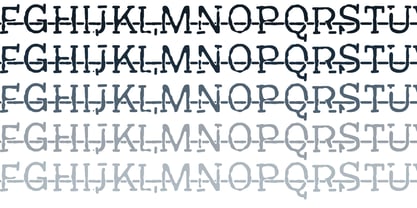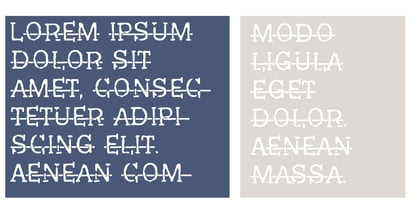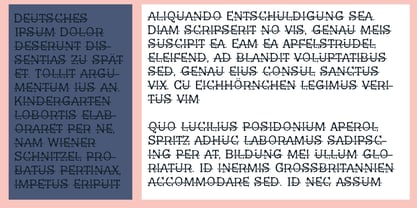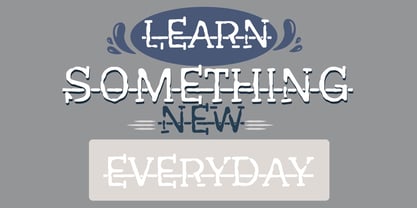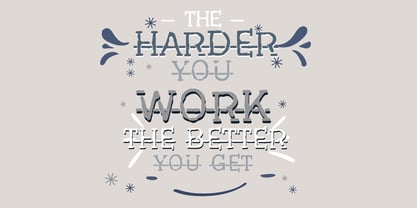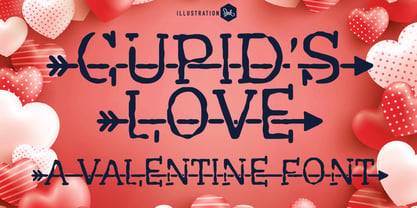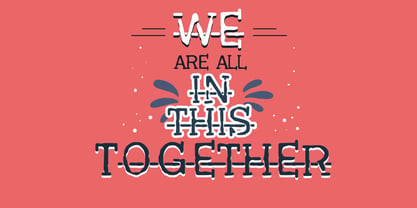
PN Cupids Love
by Illustration Ink
The PN Cupids Love Font Family was designed by Illustration Ink and published by Illustration Ink. PN Cupids Love contains 4 styles and family package options. More about this family
This hand-crafted is a fun font that is designed to look like cupid's arrow has been show through the lowercase letters. To make a word look like it was shot you will want to use the less than (<) glyph before typing any lowercase letters, followed by the greater than glyph (>). Use the hyphen (-) or the equal sign (=) to make the straight part of an arrow. Type to get the font look like the main example. Hand-crafted fonts can be either formal or informal, and they can be used for a variety of purposes. Some of the characteristics of handwritten fonts include: The letters are not perfectly uniform in size or shape. There may be slight variations in the spacing between letters and words. The font may have a "wiggly" or "squiggly" appearance. The font may be difficult to read at small sizes. Handwritten fonts can be a great way to add a casual touch to your designs. They can also be used to create a sense of nostalgia or whimsy. However, it is important to choose a handwritten font that is appropriate for the project you are working on. A formal handwritten font may not be appropriate for a casual invitation, while an informal handwritten font may not be appropriate for a corporate document.
Designers: Illustration Ink
Foundry: Illustration Ink